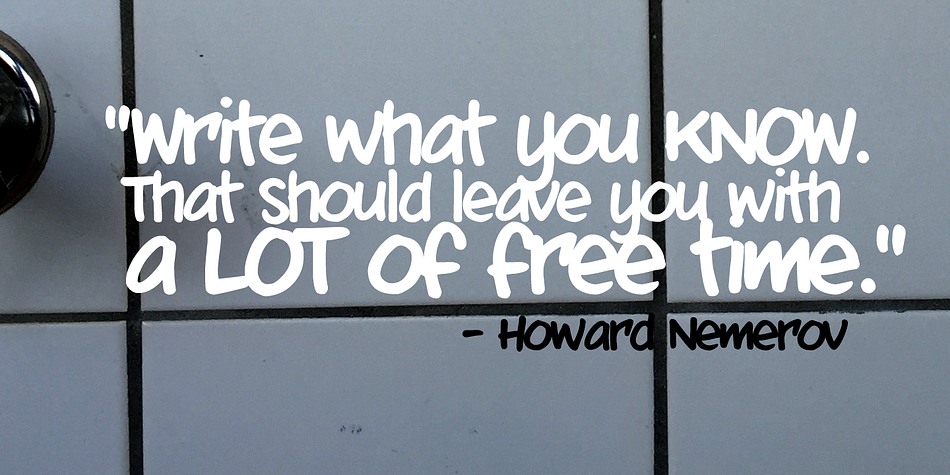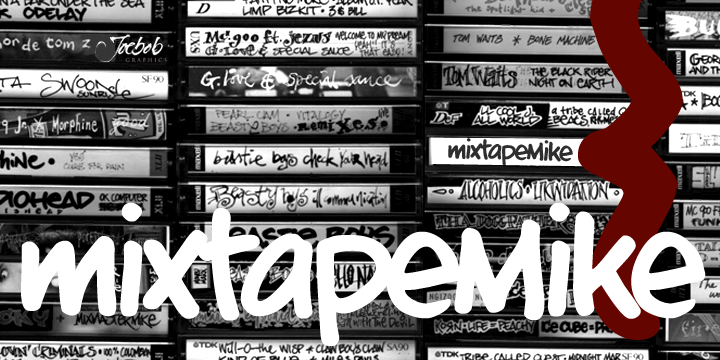
mixtapeMike is a comic font published by JOEBOB Graphics.
An urban handwritten script which could be used for your mixtapes, but there ar a million more possibilities with this font.